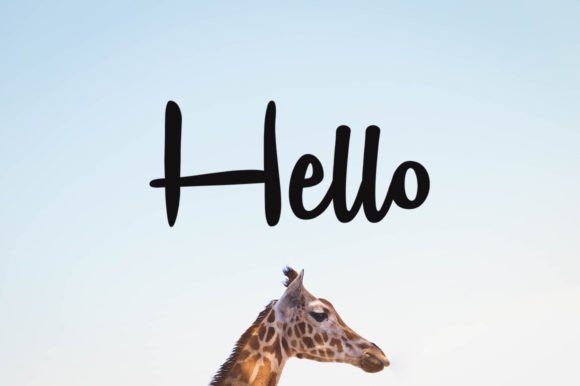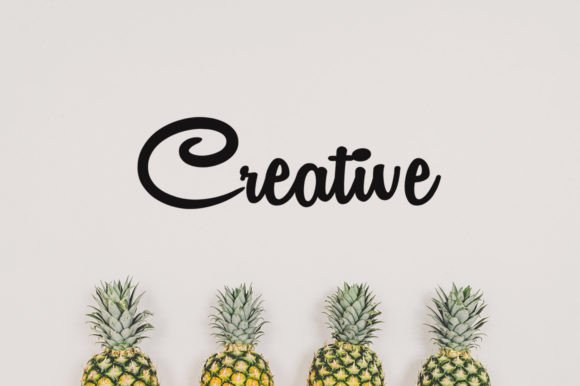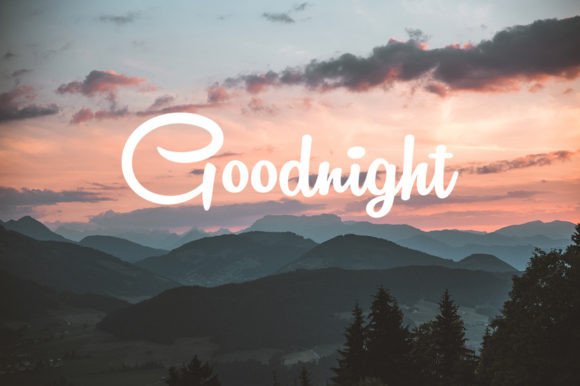
Boho Font
A Simple and Friendly Handwritten Font
The Boho Font is a simple and friendly handwritten typeface that brings a relaxed, approachable vibe to any design. Its clean and easy-to-read style makes it perfect for a variety of creative projects. Whether you’re designing crafts, digital designs, presentations, or greeting cards, the Boho Font adds a personal, fun touch that gives your work a unique and inviting feel.
Perfect for Crafts and DIY Projects
If you’re creating crafts or DIY projects, the Boho Font is an excellent choice. Its easygoing and artistic design adds a personalized and creative touch to your creations. Whether you’re working on scrapbooking, wall art, or other handmade projects, this font ensures that your designs feel original and special. The Boho Font‘s charm will make your crafts stand out and feel one-of-a-kind.
Ideal for Digital Designs and Presentations
For digital designs and presentations, the Boho Font offers a stylish, friendly touch to your work. Whether you’re designing website graphics, social media posts, blog headers, or presentation slides, this font gives your content a warm, inviting aesthetic. Its clear readability and approachable style ensure your digital designs are both visually appealing and easy to engage with.
Great for Greeting Cards and Invitations
The Boho Font is perfect for designing greeting cards, thank you notes, and invitations. Whether you’re creating cards for birthdays, holidays, or other special occasions, this font adds a personal and heartfelt touch to your messages. Its friendly, casual feel ensures that your cards and invitations stand out with a unique and memorable look.
Versatile for Multiple Design Applications
The Boho Font is highly versatile, making it ideal for a wide range of design applications. Whether you’re working on flyers, logos, business cards, posters, or stationery, this font adapts perfectly to your needs. Its approachable design makes it suitable for both personal and business projects. The Boho Font’s friendly and simple look ensures it works beautifully across digital and print media.
Simple, Friendly, and Legible
Despite its simple and friendly design, the Boho Font is legible and easy to read. Its smooth, clear strokes ensure that your text remains easy to understand, even at smaller sizes or for longer text passages. Whether you’re using it for headlines, captions, or full body text, this font strikes the perfect balance between charm and clarity, making it ideal for various types of design projects.
Add a Personal Touch to Your Designs with Boho Font
If you’re looking for a simple, friendly, and creative handwritten font to enhance your designs, the Boho Font is the perfect choice. Whether you’re designing crafts, digital designs, presentations, or greeting cards, this font brings a unique touch to your work. Let the Boho Font add a personal flair to your designs and create spectacular projects that are both charming and memorable.